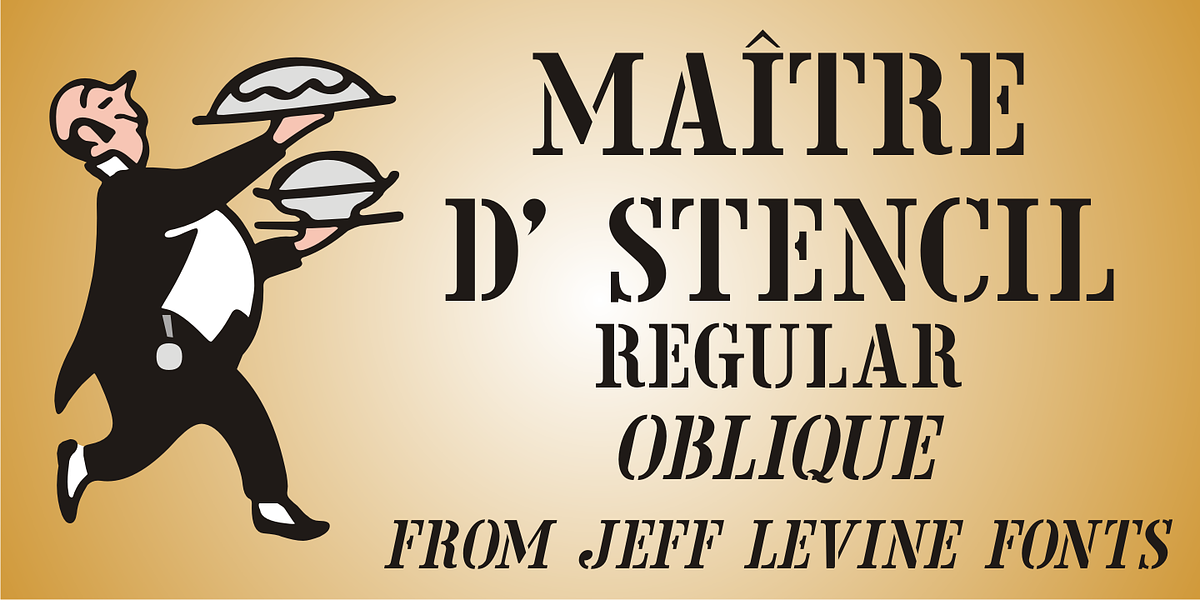
Maître d' Stencil JNL
Maître d' Stencil JNL is based on an alphabet example found in the 1949 French lettering book “Album de Lettres Arti”, and is available in both regular and oblique versions.